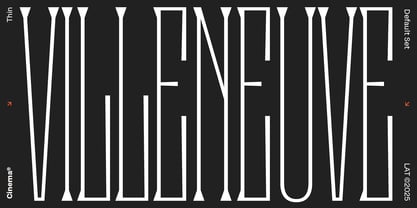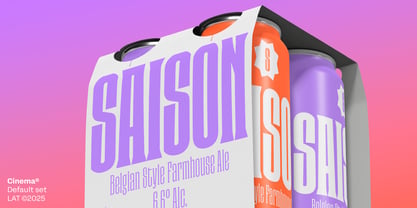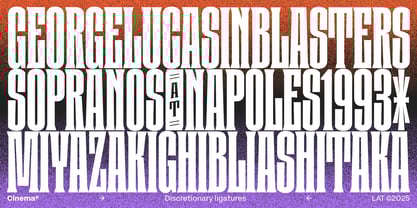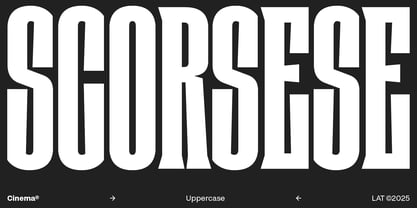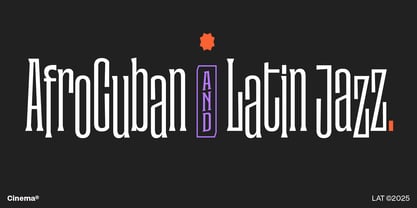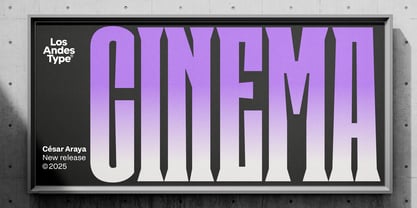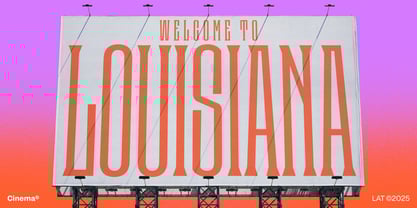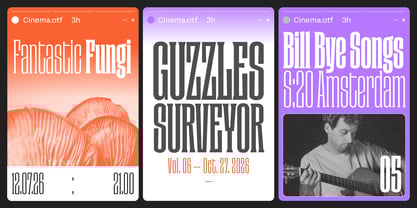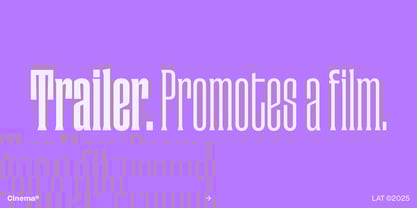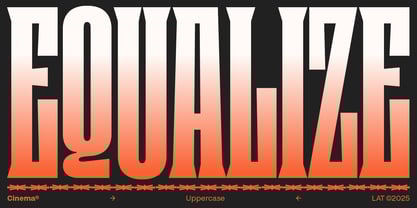
Cinema
by Los Andes
The Cinema Font Family was designed by Latinotype Team, César Araya and published by Los Andes. Cinema contains 9 styles and family package options. More about this family
Lights, letters… action!
Cinema is a condensed serif typeface with the flair of the stage and the charisma of vintage marquee lettering. Inspired by the bold editorial design of Chilean magazines from 1941, it has been crafted to effortlessly adapt to today’s media platforms and visual languages. Its narrow profile and generous weight deliver a strong typographic hierarchy, and immediate visual impact.
With distinctive serifs, precise proportions, and a finely tuned rhythm of counterforms, Cinema excels in creating compact, expressive text blocks that command attention.
Blending nostalgia with modern sophistication, Cinema is ideal for headlines, branding, posters, covers, editorial layouts, and audiovisual projects that aim to project strength, elegance, and visual drama.
Designers: Latinotype Team, César Araya
Foundry: Los Andes